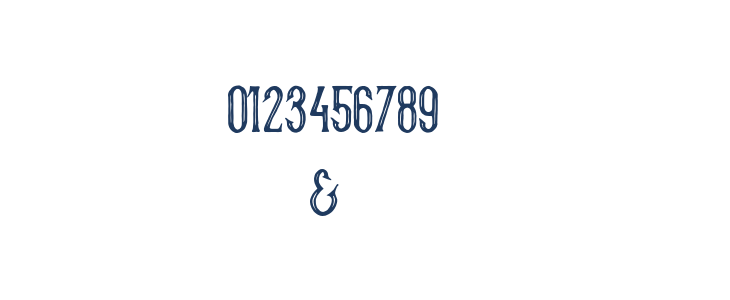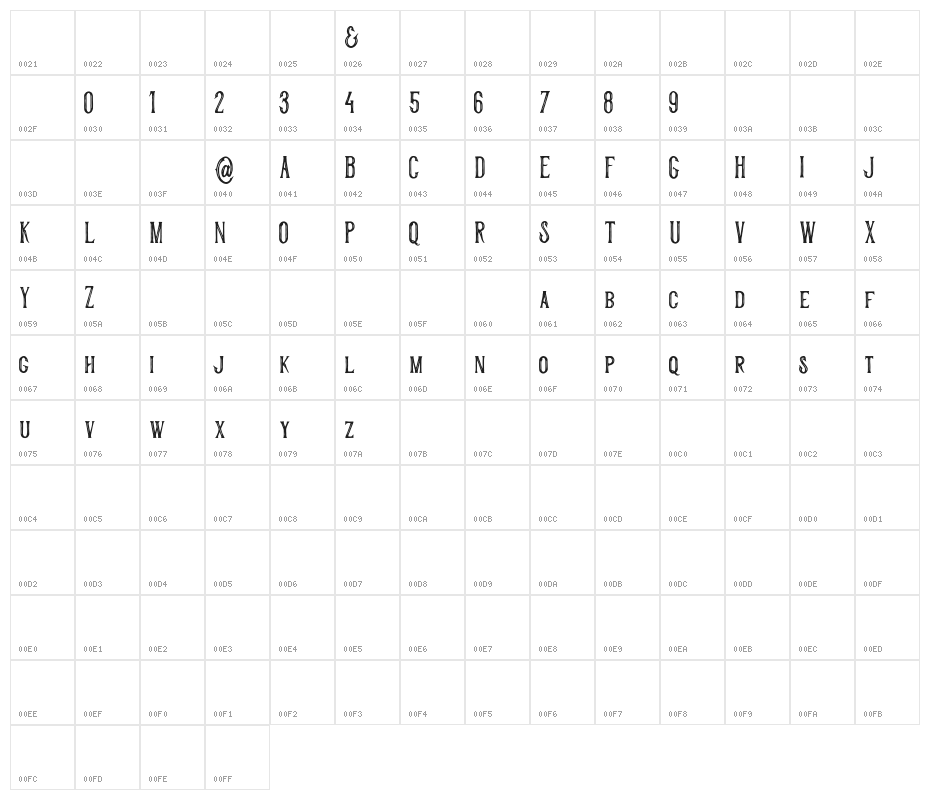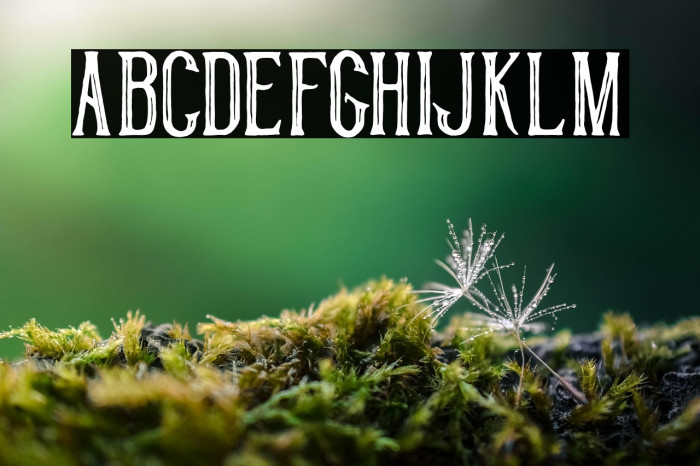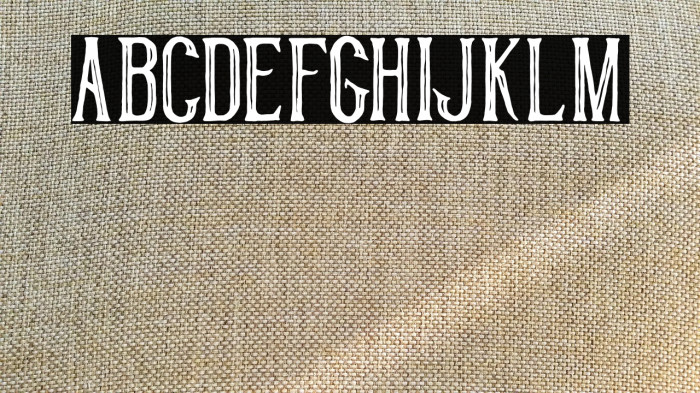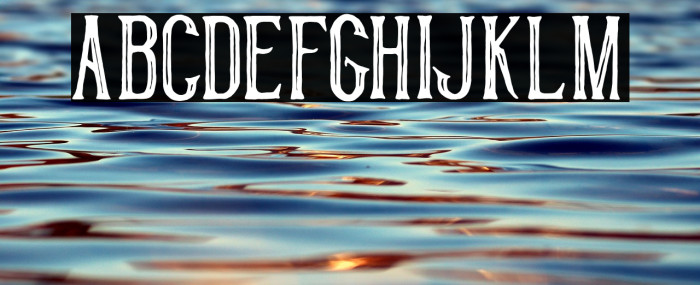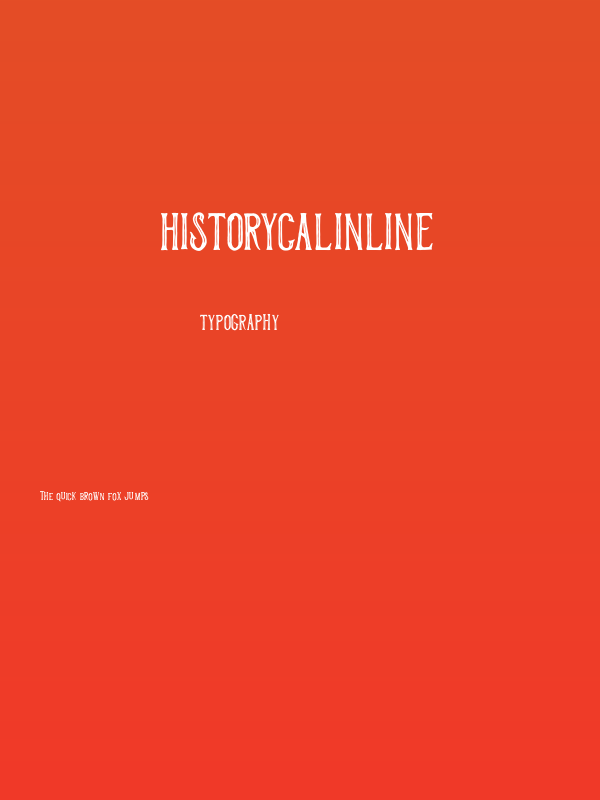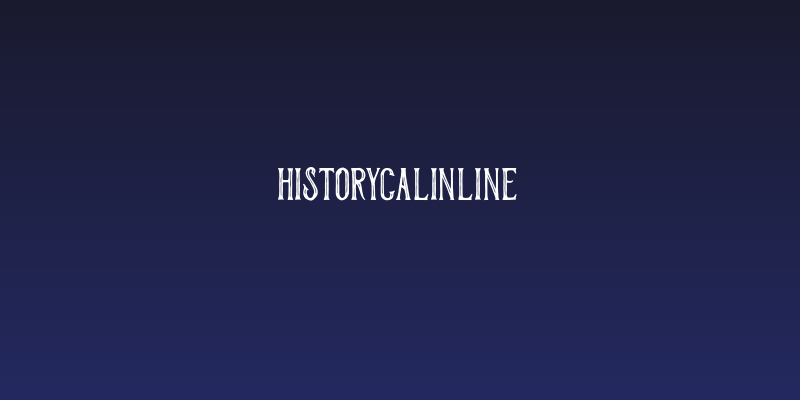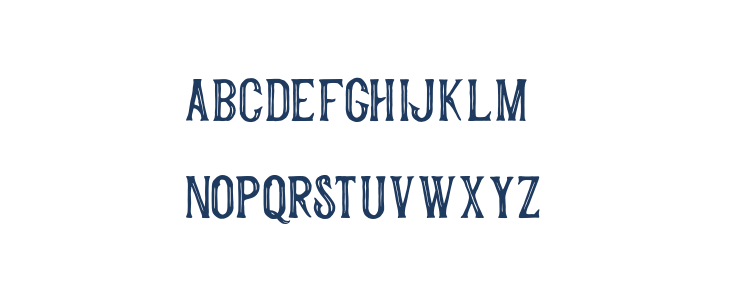
HistorycalInline Font
HistorycalInline Description
This font features a distinct vintage style with a decorative flair, characterized by its bold and artistic strokes. Each letter has a unique, hand-drawn appearance, giving it a rustic and historical feel. The uppercase letters are particularly striking, with intricate details that suggest a handcrafted quality. The numbers and special characters maintain this aesthetic, ensuring a cohesive look across all elements. The font's overall design is reminiscent of old signage or posters, making it ideal for projects that require a touch of nostalgia or a historical theme.
| Use Case | Headlines, Logos, Decorative text |
| Proposed Projects | Ideal for vintage-themed posters, historical event invitations, retro branding, and decorative signage. |